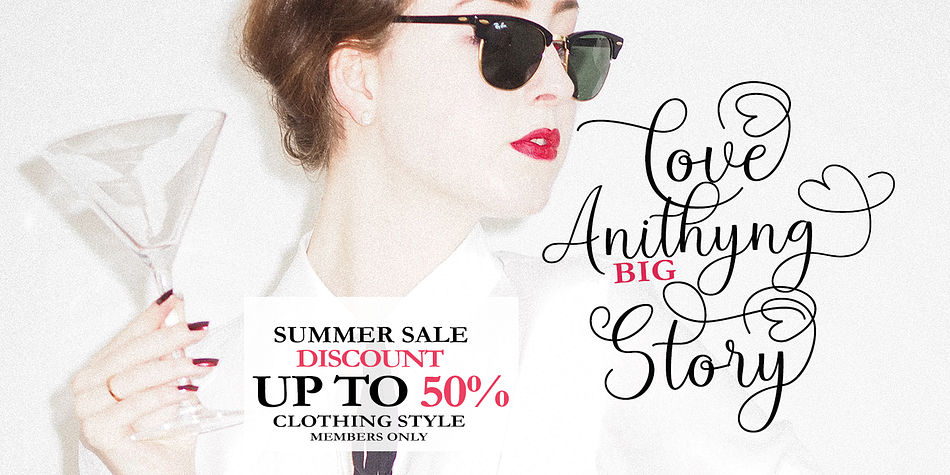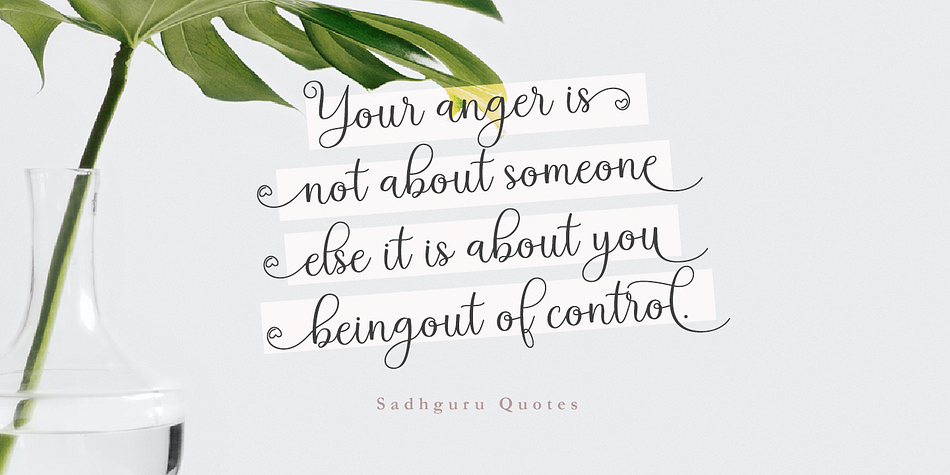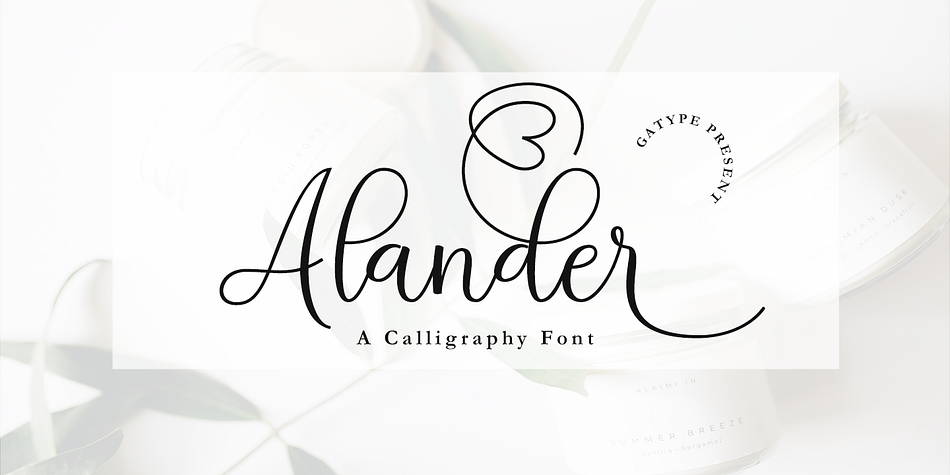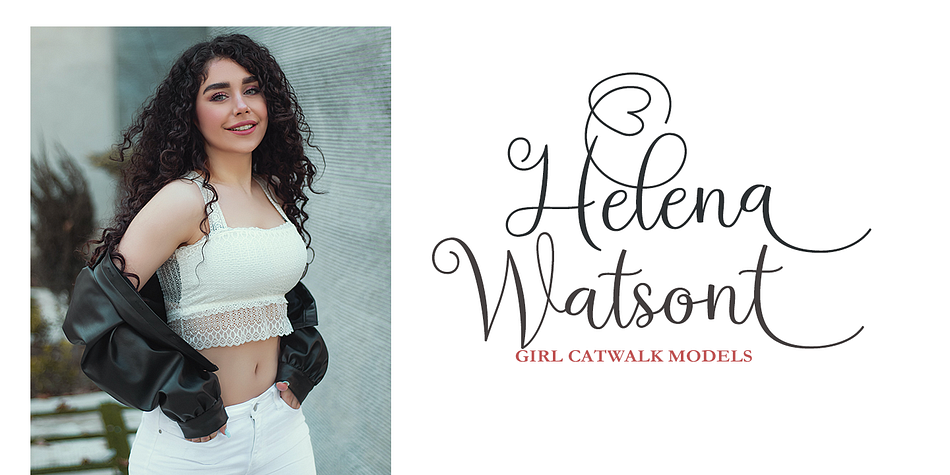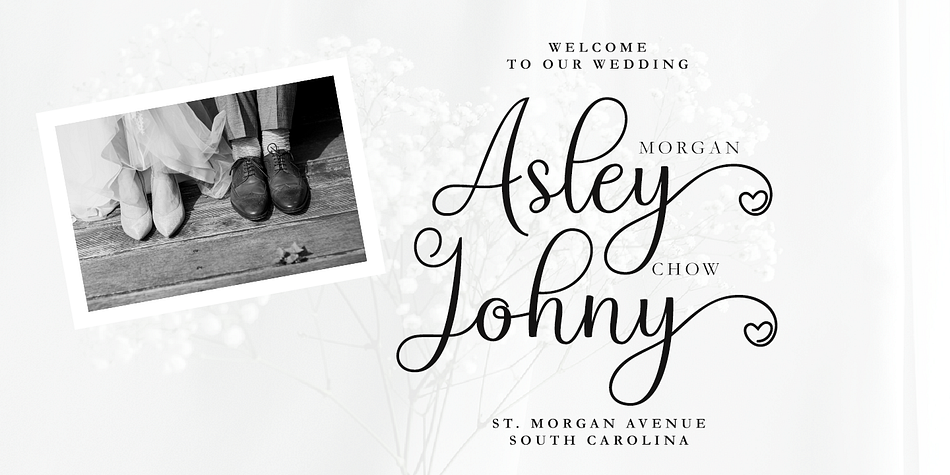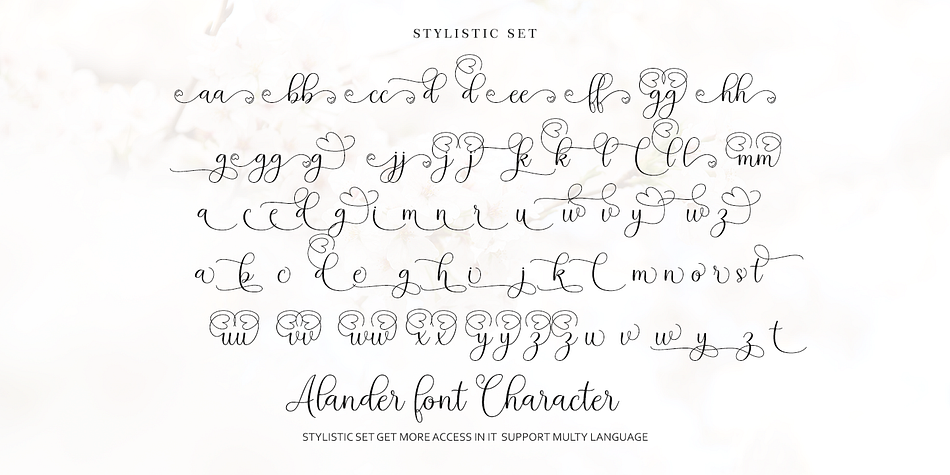
Alander
Alander is a modern calligraphy font family published by Gatype.
Alander script, suitable for creating text-based logos. Various alternatives and fasteners allow you to create a unique logo that better represents your product. Likewise, you can use it as a title for catalogs, zines, magazines, and publications that call for a modern sophistication.